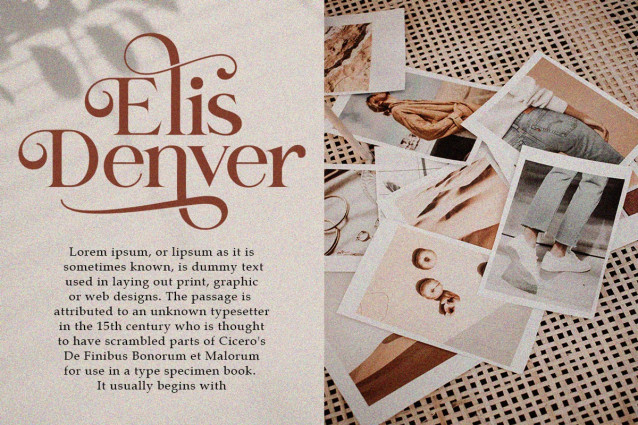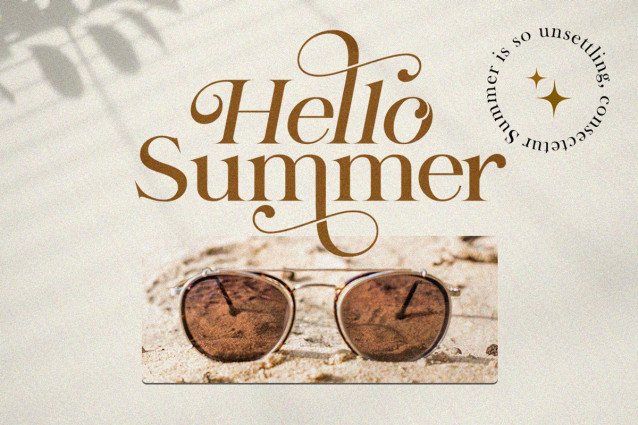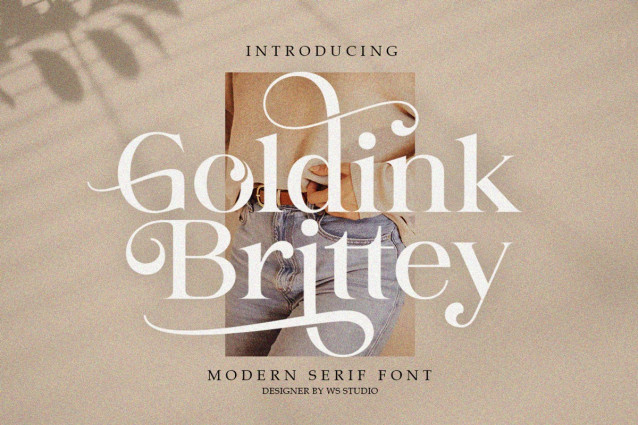
Goldink Brittey Font
Goldink Brittey Font is an elegant Modern Serif Font that gives a romantic feel to any curve that has smooth edges. This typeface has been carefully crafted to ensure premium quality and a luxurious feel, This typeface comes in both uppercase and lowercase, with punctuation, symbols, numbers, alternative styles and also has multilingual support. Make something beautiful today with this font.